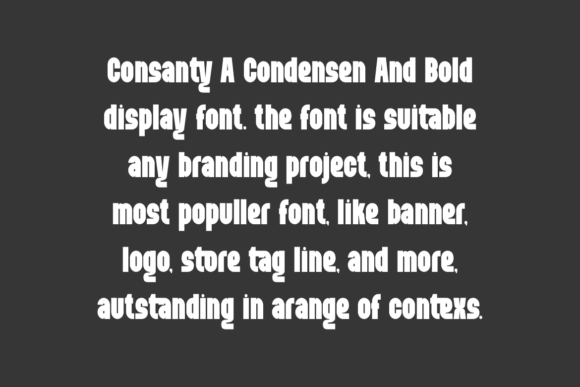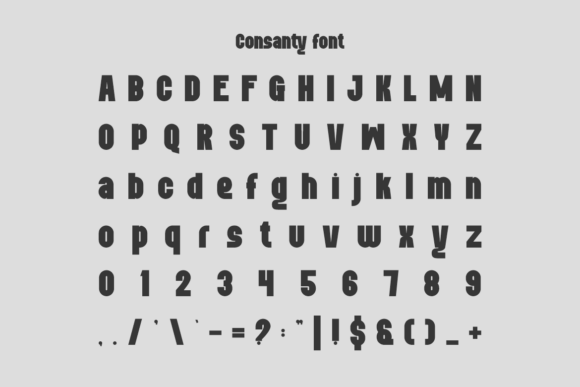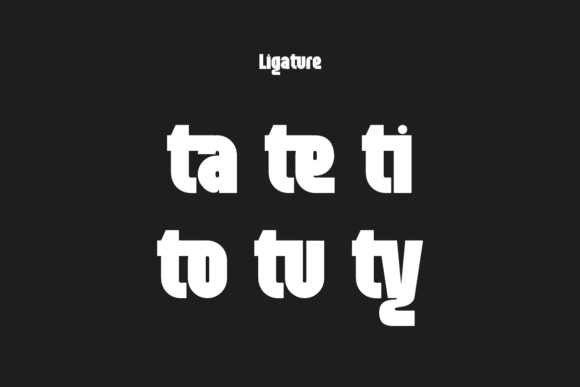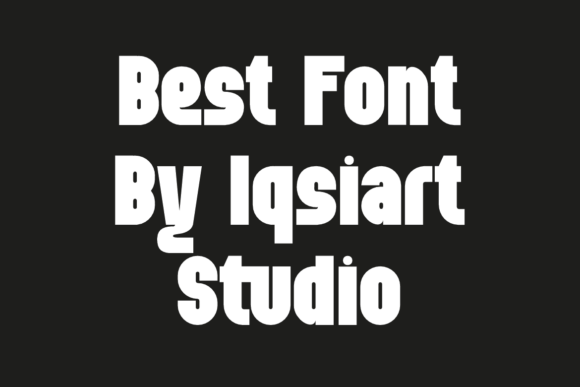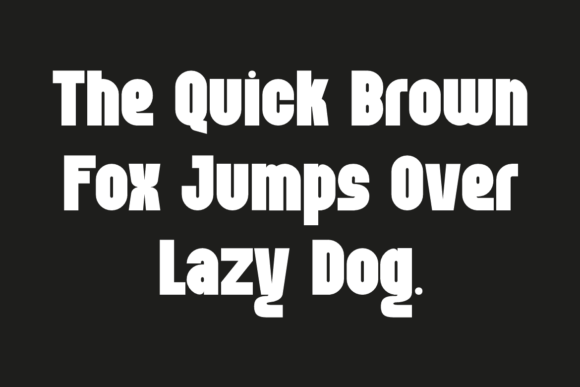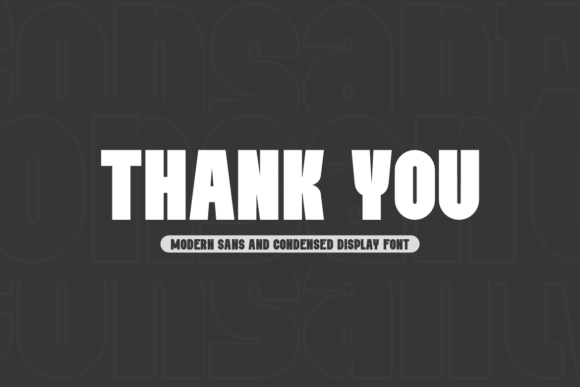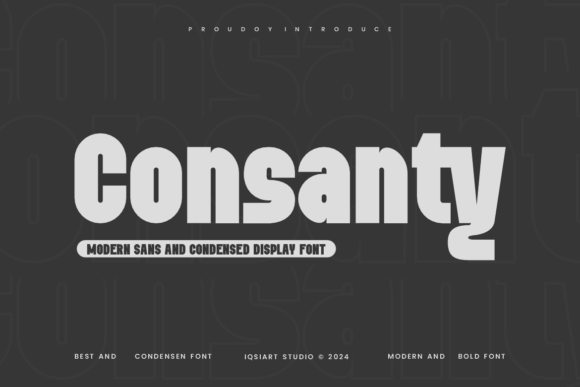
Introducing Consanty Font: The Ultimate Modern Display Font
In the world of typography, fonts play a crucial role in conveying messages, expressing emotions, and creating visual identities. For designers and crafters, finding the perfect font can be a daunting task, especially when it comes to creating attention-grabbing headlines and display text. This is where Consanty Font comes in – a modern, clean, and bold sans-serif font designed specifically for display purposes.
What is Consanty Font?
Consanty Font is a sleek and stylish sans-serif font characterized by its condensed letterforms, making it perfect for headlines, titles, and attention-grabbing text. Its modern and clean design ensures clarity and readability, while its bold and minimalist style adds a touch of sophistication and elegance.
Key Features of Consanty Font
- Condensed Letterforms: Consanty Font features condensed letterforms that allow for more text to be fitted into a smaller space, making it ideal for headlines, titles, and display text.
- Modern and Clean Design: The font boasts a modern and clean design that ensures clarity and readability, even at smaller font sizes.
- Bold and Minimalist Style: Consanty Font’s bold and minimalist style adds a touch of sophistication and elegance to any design project.
- Versatile and Highly Legible: The font is highly legible and versatile, making it suitable for a wide range of design applications, from digital media to print materials.
Uses of Consanty Font
Consanty Font is designed specifically for display purposes, making it perfect for:
- Headlines and Titles: Use Consanty Font to create attention-grabbing headlines and titles that make a lasting impression.
- Logos and Branding: The font’s modern and clean design makes it an excellent choice for logos and branding materials.
- Advertising and Marketing: Consanty Font’s bold and minimalist style makes it perfect for advertising and marketing materials, such as brochures, flyers, and posters.
- Digital Media: The font is highly legible on digital screens, making it suitable for website headers, social media graphics, and digital advertising.
Benefits of Using Consanty Font
By using Consanty Font, designers and crafters can benefit from:
- Improved Readability: The font’s clean and modern design ensures improved readability, even at smaller font sizes.
- Increased Versatility: Consanty Font’s versatility makes it suitable for a wide range of design applications.
- Enhanced Visual Appeal: The font’s bold and minimalist style adds a touch of sophistication and elegance to any design project.
- Time-Saving: With Consanty Font, designers and crafters can save time and effort in finding the perfect font for their projects.
In conclusion, Consanty Font is a modern, clean, and bold sans-serif font designed specifically for display purposes. Its condensed letterforms, modern and clean design, and bold and minimalist style make it perfect for headlines, titles, and attention-grabbing text. With its versatility, high legibility, and sleek design, Consanty Font is an excellent choice for designers and crafters looking to add a stylish and contemporary touch to their design projects.